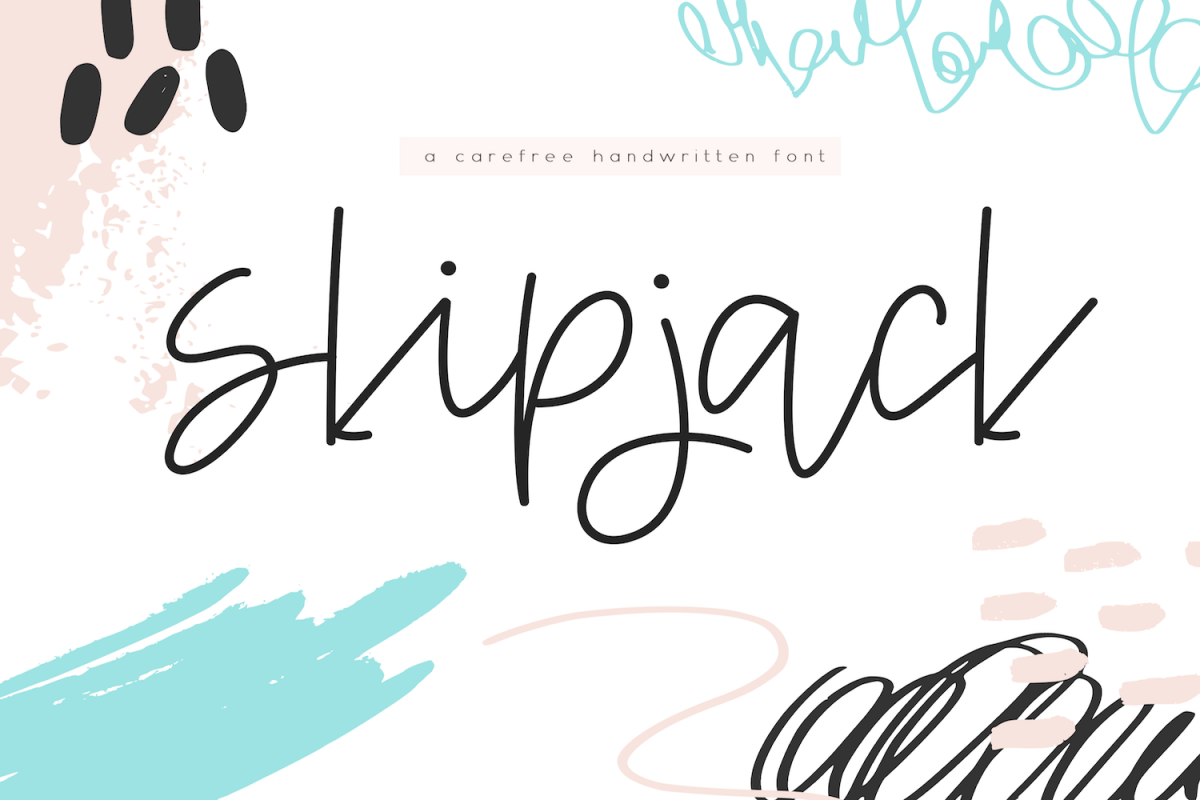
Skipjack - A Carefree Script Font
Skipjack
Skipjack is a fun handwritten font with an unexpected lineup.
The letters are all in their own unique styles, but flow together in a creative way.
This font is perfect for quotes, headings, designs, logos, invitations and more!